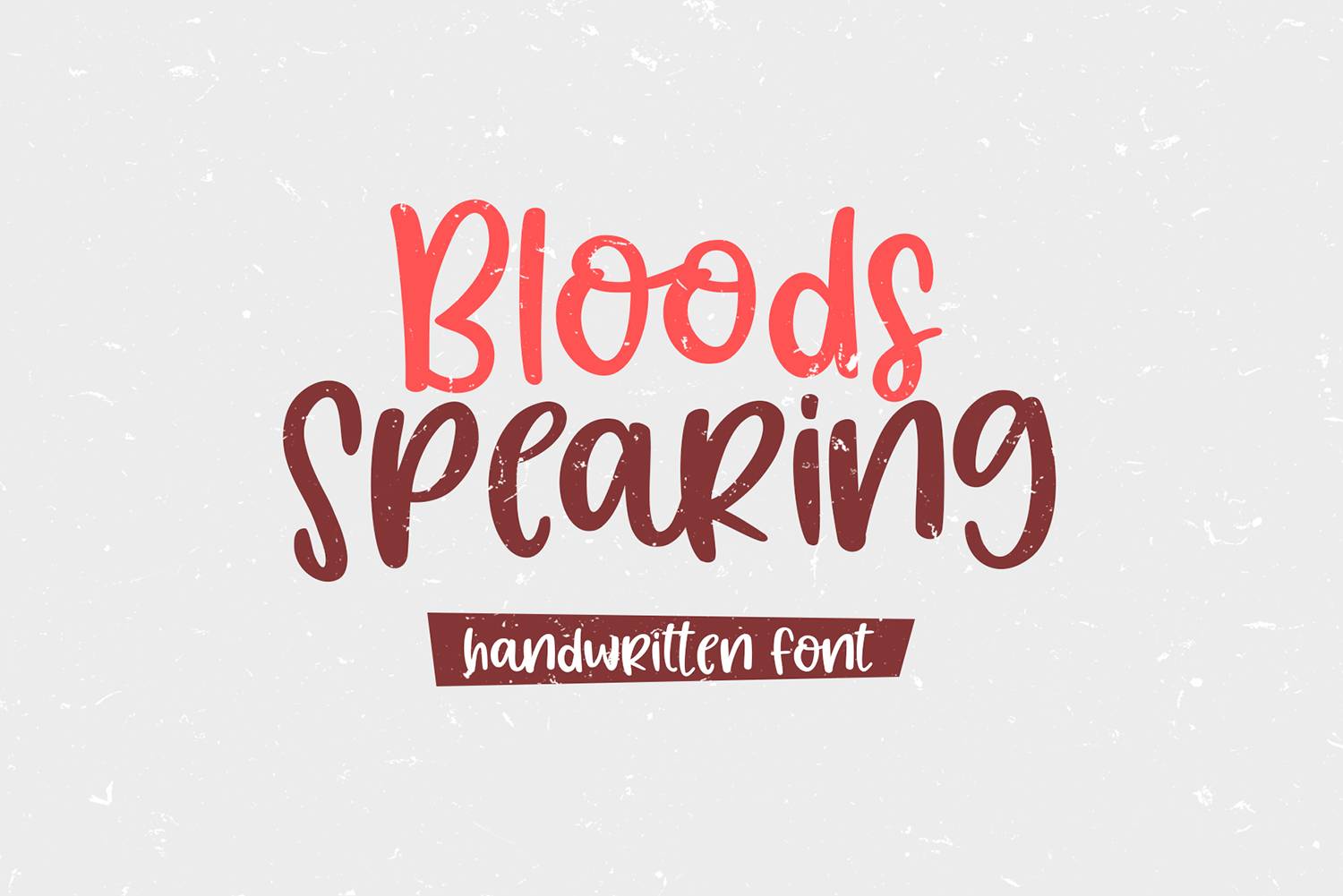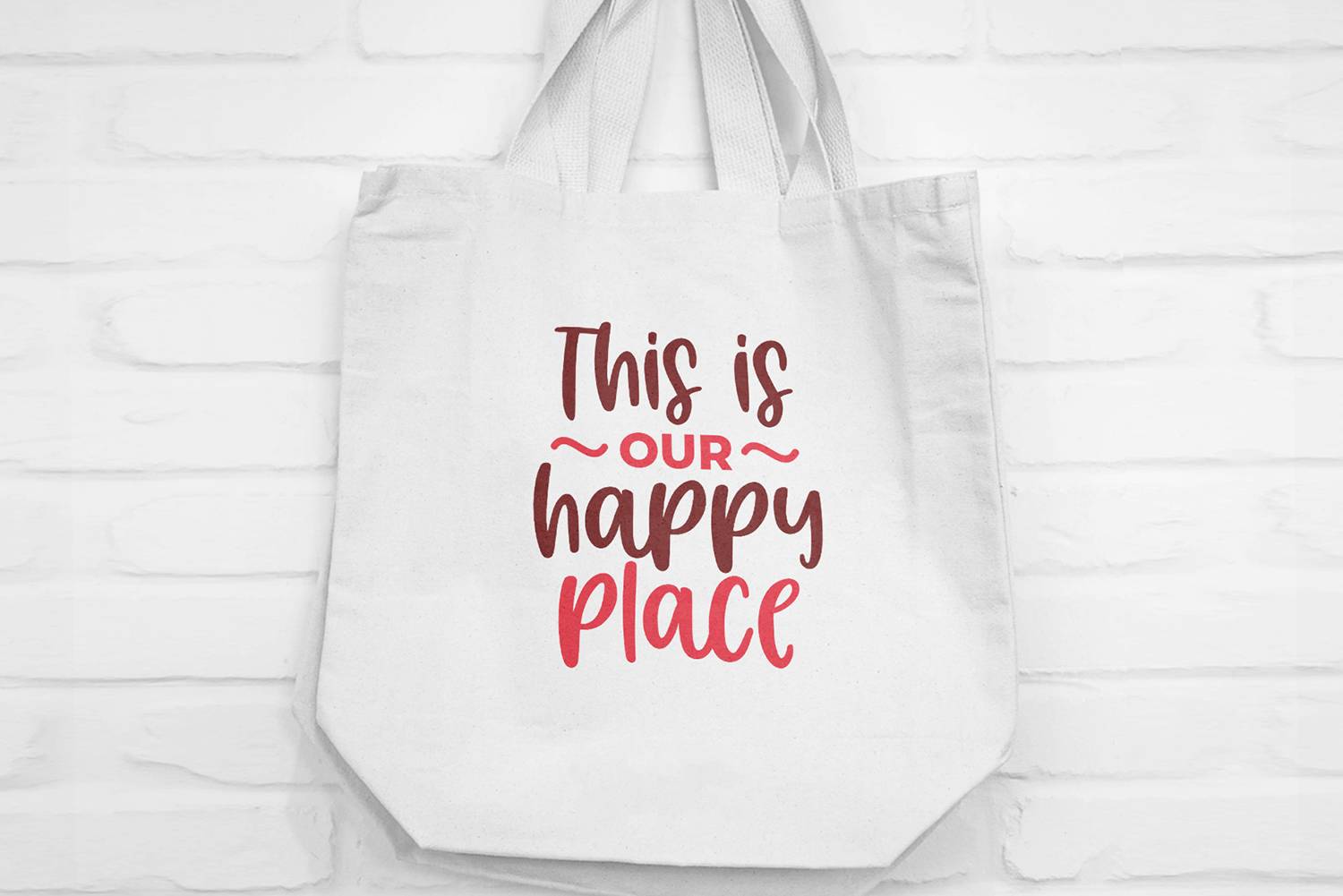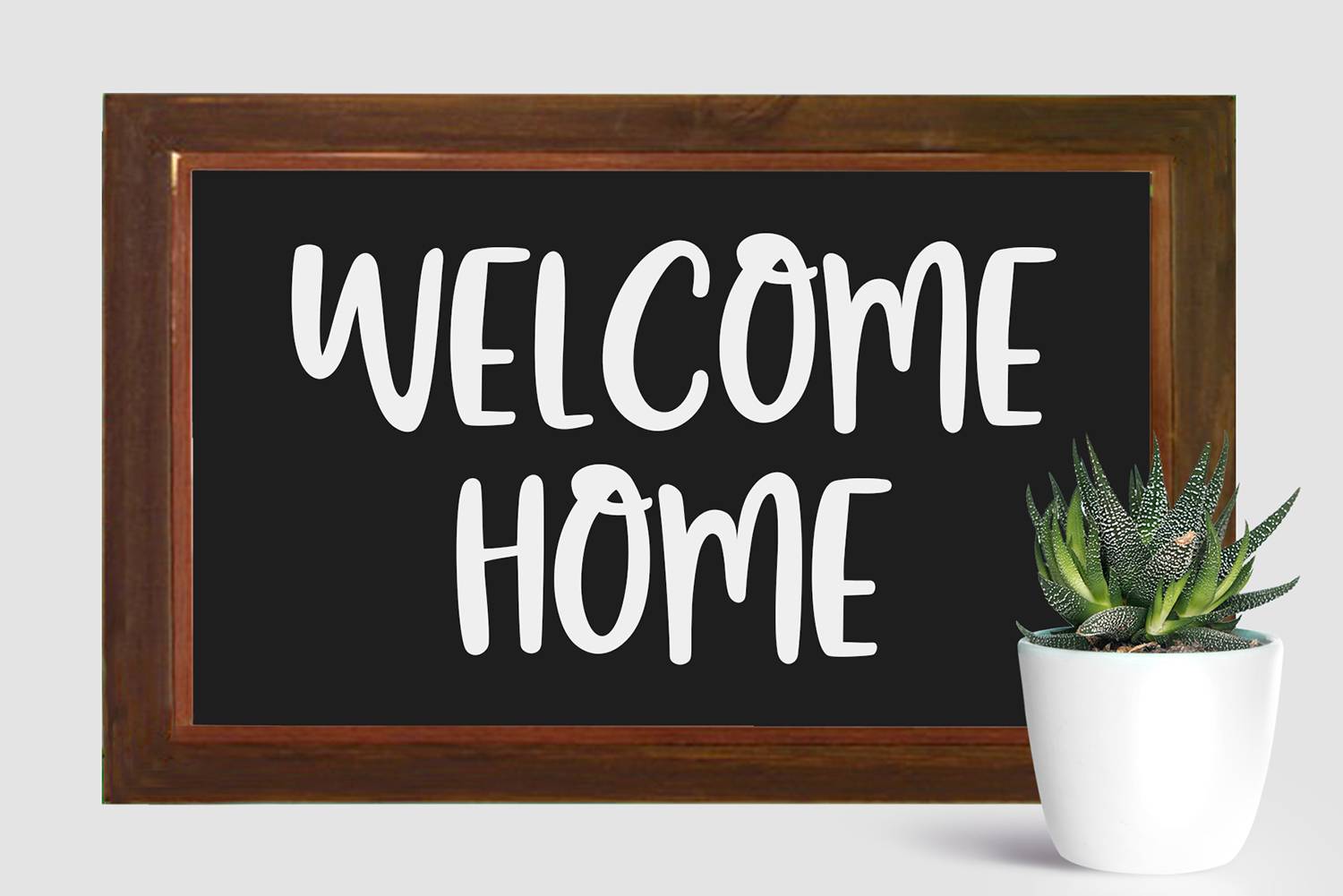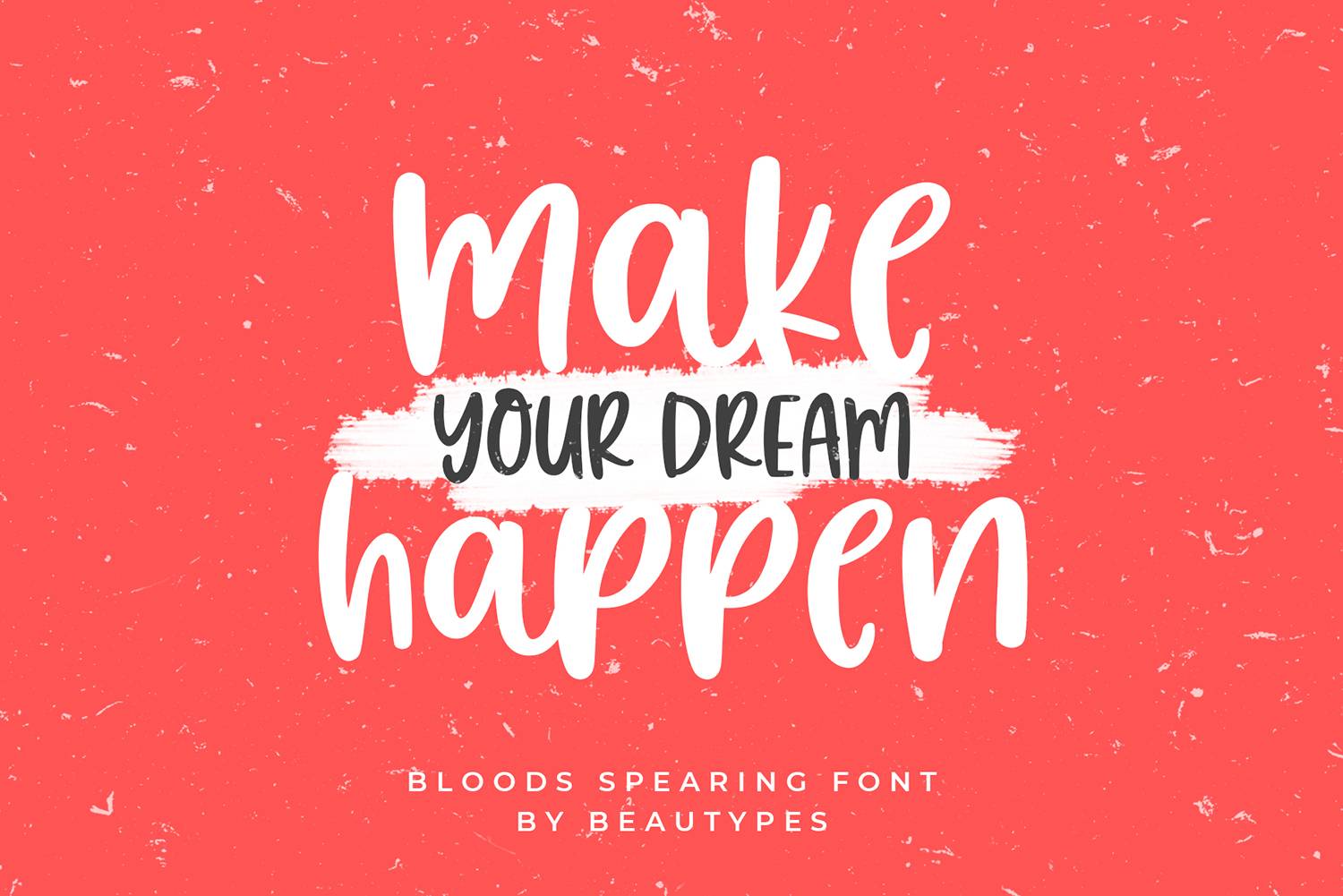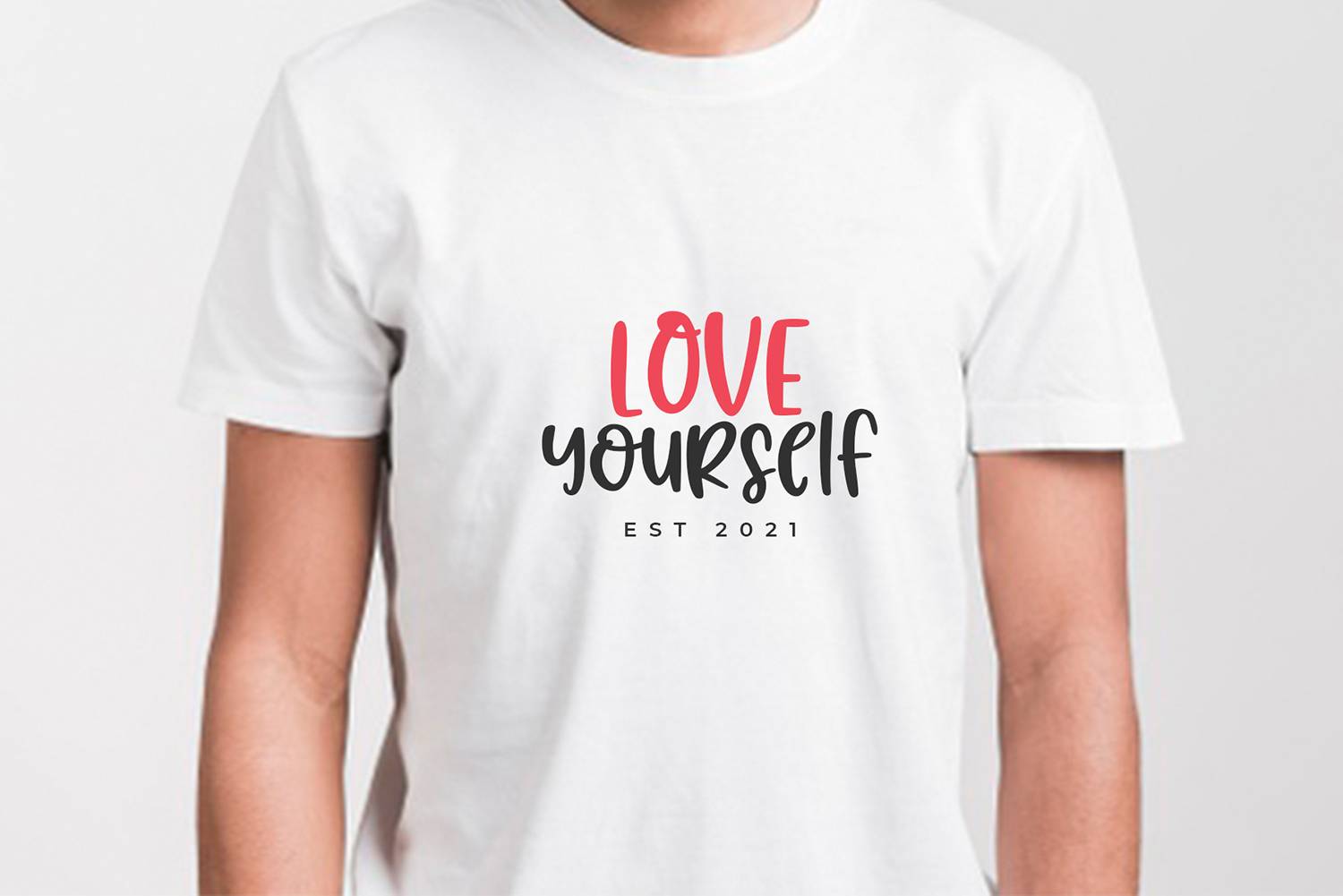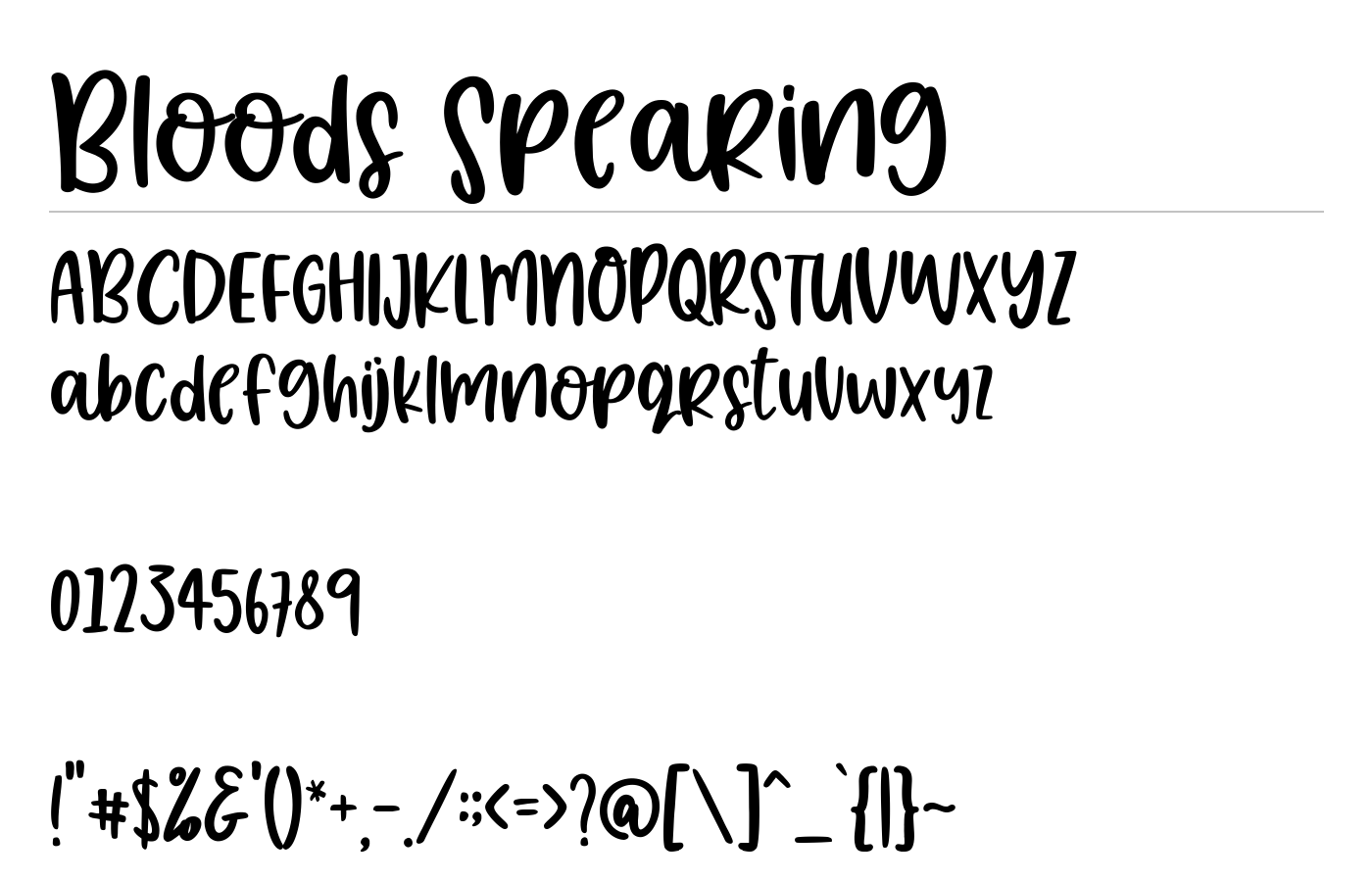
Bloods Spearing is a playful and casual handwritten font with a friendly, approachable vibe. Its irregular strokes and tall, narrow letterforms give it a lively and energetic feel, making it perfect for informal designs, invitations, and creative branding. This font works best in headlines or short text where a warm, personal touch is desired.
Bloods Spearing Font
About Bloods Spearing Font
| Font family | Bloods Spearing Font |
| Release date | 2021-06-28 |
| Designer | Beautypes |